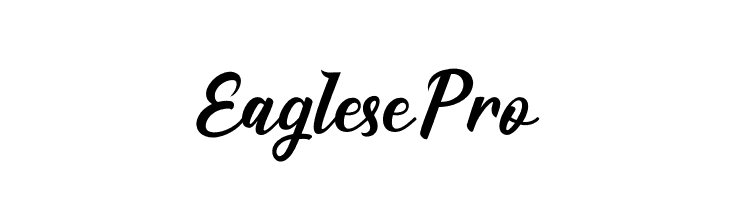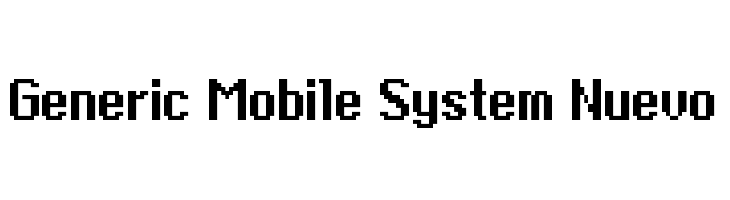
A pixelated, blocky font inspired by retro digital displays.
A decorative font with cartoon-style dancing couple illustrations.
A decorative font with characters enclosed in heart shapes, perfect for romantic themes.
A bold, italicized font with a modern, artistic design featuring rounded shapes and high contrast.
A geometric, maze-like font with a bold, digital aesthetic.
A sharp, jagged font with a horror-inspired design, perfect for suspenseful themes.
A bold, rounded font with a modern and playful style.
A playful, italicized handwritten font with a casual and dynamic style.
A bold, modern italic font with rounded, futuristic characters.